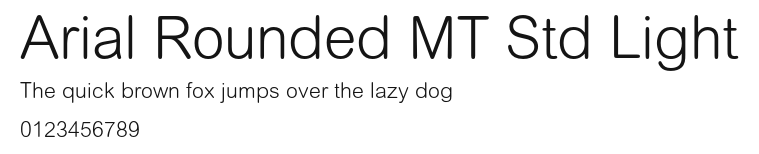
• Font Name: Arial Rounded MT Std Light
• Manufacturer: Agfa Monotype Corporation
About Arial Rounded MT Std Light.ttf
Arial Rounded MT Std Light.ttf is a modern, elegant sans-serif font designed for ultimate readability and visual harmony. Perfect for branding, headlines, web design, and print materials.